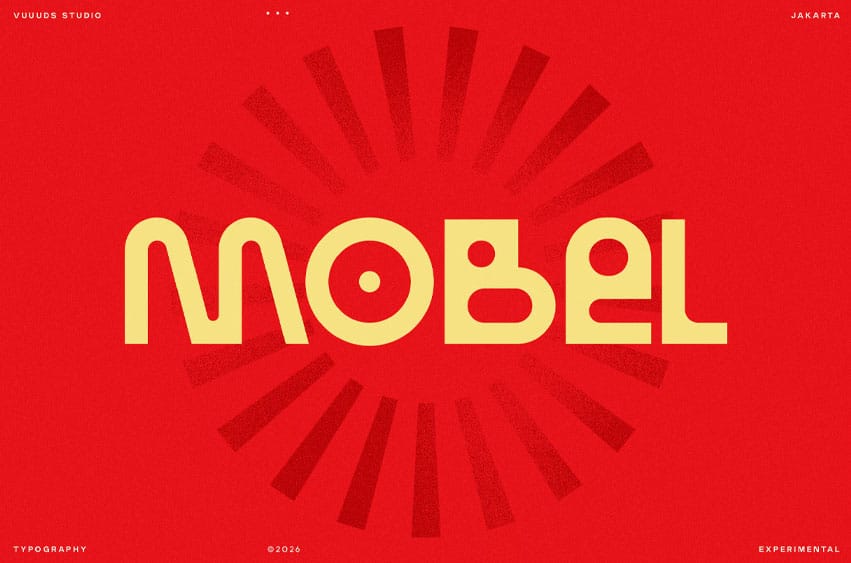
Mobel Font is a bold, modern sans serif font with a futuristic and experimental monoline aesthetic. Each character is uniquely crafted to elevate your design projects.
Multi languages support: ÀÁÂÃÄÅĂÆÇÈÉÊËÌÍÎÏÐÑÒÓÔÕÖØȘȚÙÚÛÜÝŸ àáâãäåăæçèéêëìíîïðñòóôõöøșțùúûüýÿ ߀£¥©®™